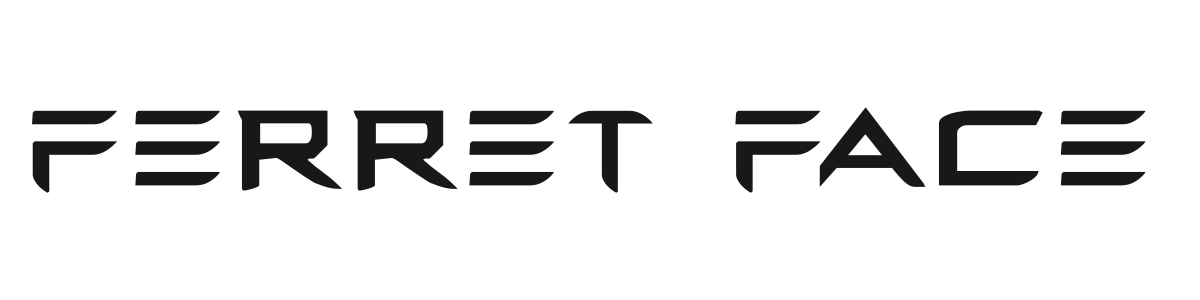
Ferret Face
Ferret Face is a wide geometric sans-serif built from angular, mechanically sheared strokes with flat diagonal terminals in place of conventional curves. The characters have a dense, monoweight construction that reads as military hardware or deep-space navigation displays. It comes in fourteen variants including condensed, expanded, 3D, and laser styles, giving designers a full toolkit for high-impact headline work.